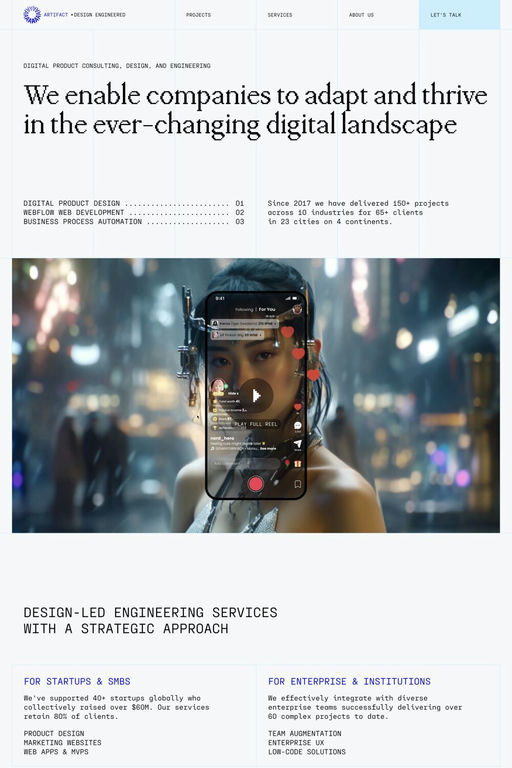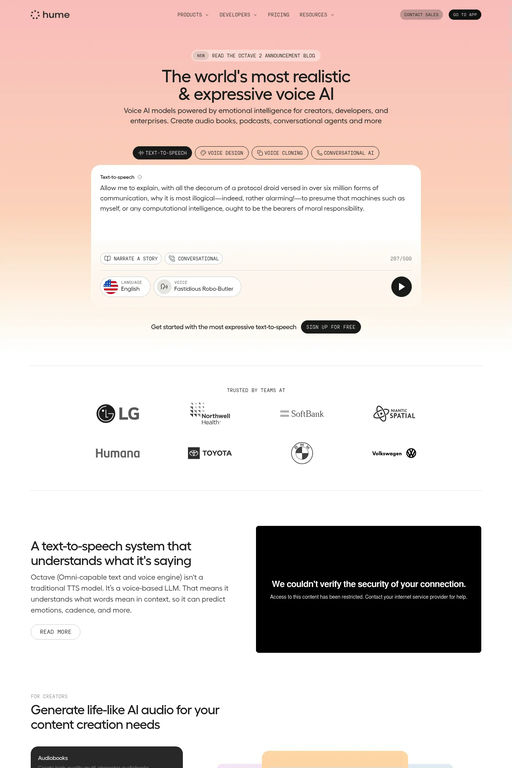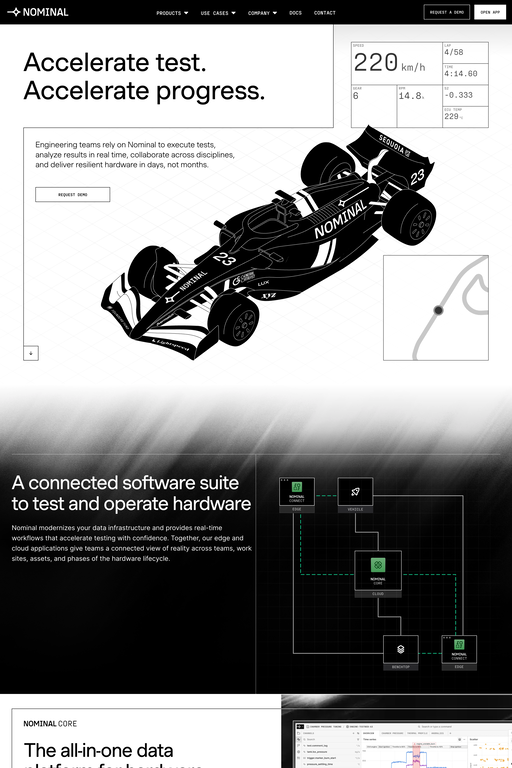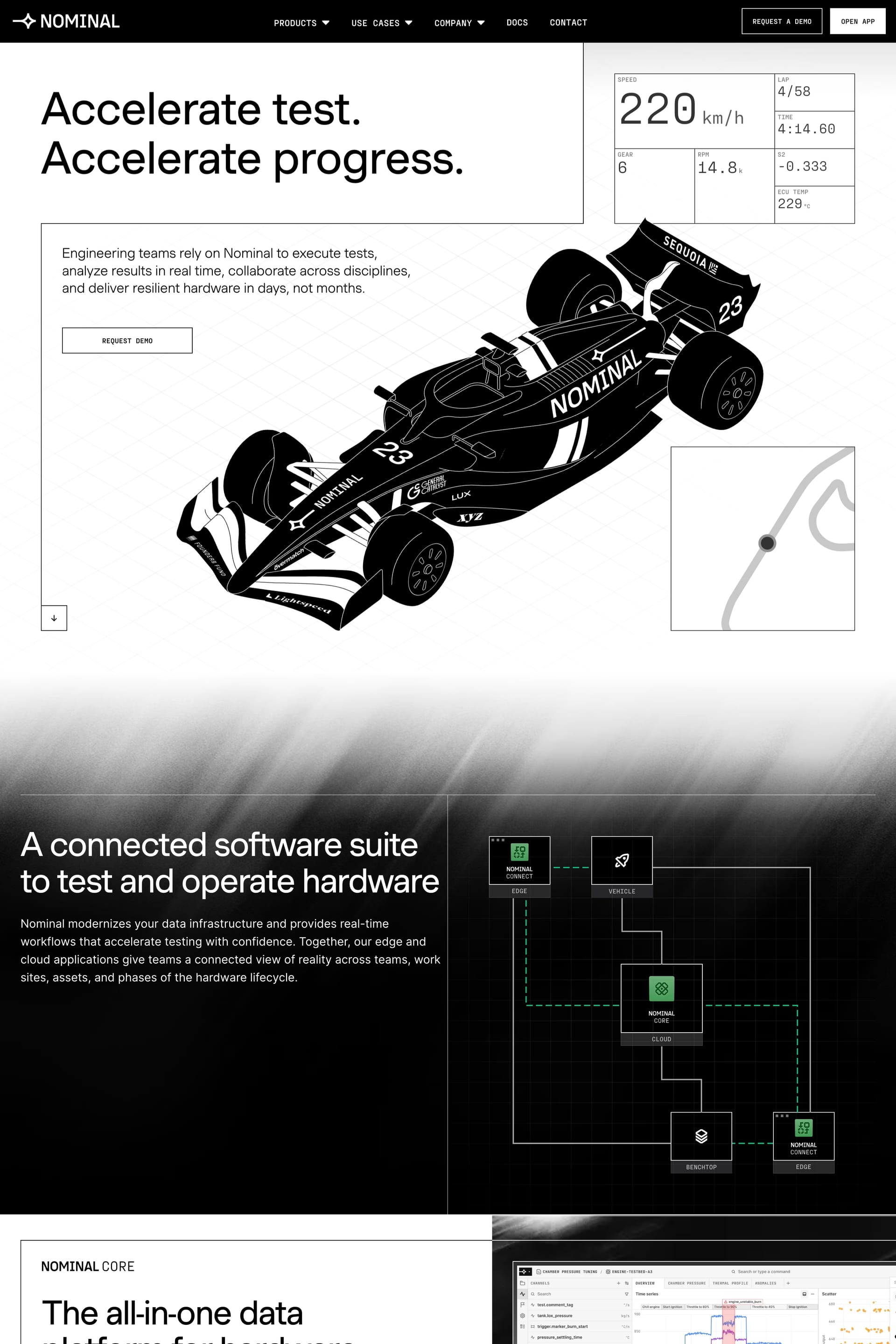
Fraktion is a sans-serif typeface from Pangram.
Fraktion Sans is a contemporary grotesque exploring the space between mechanical sturdiness and expressive clarity ● While its inspiration stems from vintage signage lettering, the final design is a rather far departure.
A1 features 3 websites using Fraktion, including Nominal, Hume AI, and Artifact. They lean towards Clean, Minimal, and Techy design styles, and they’re most often built with Next.js and Webflow.